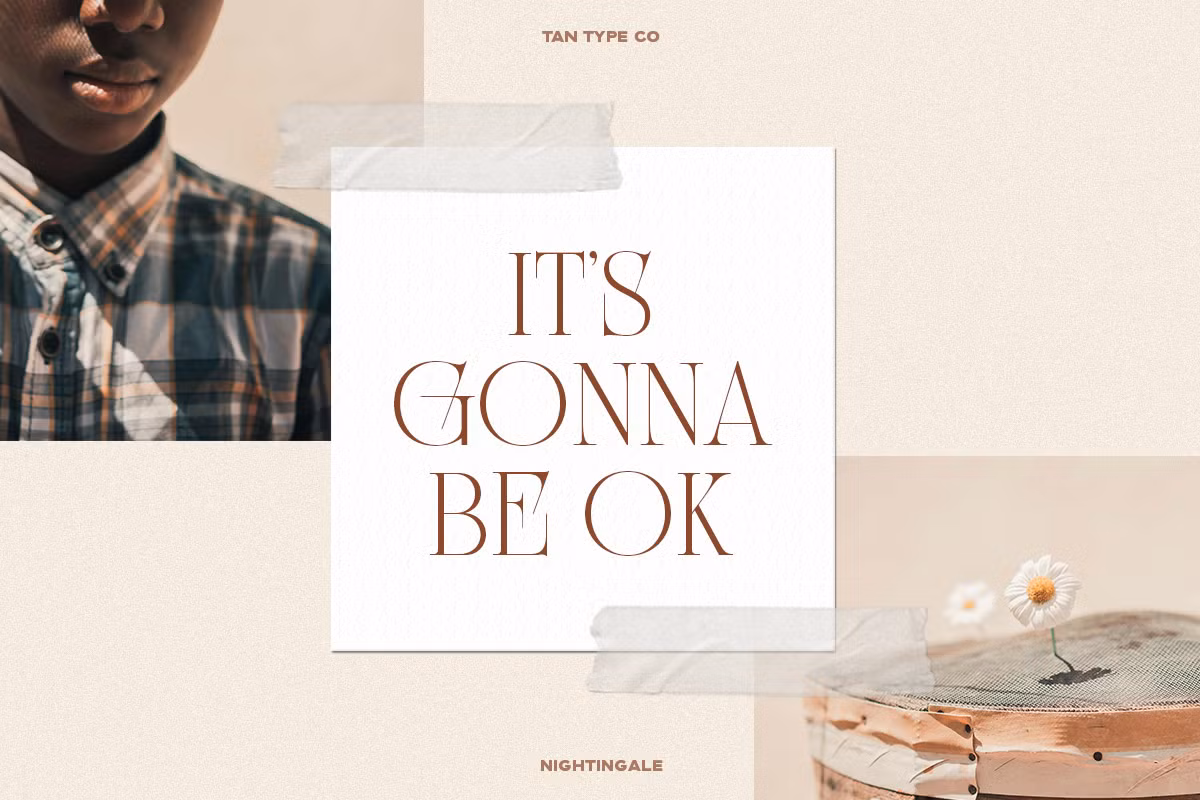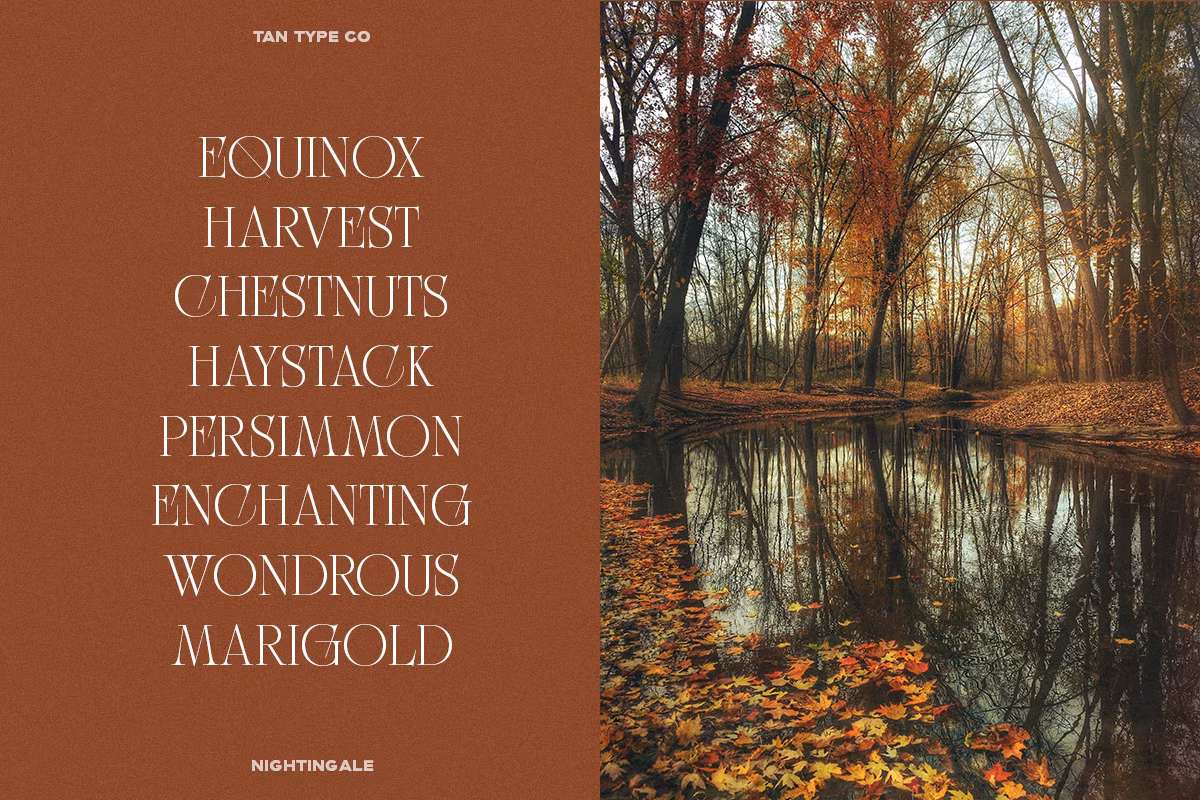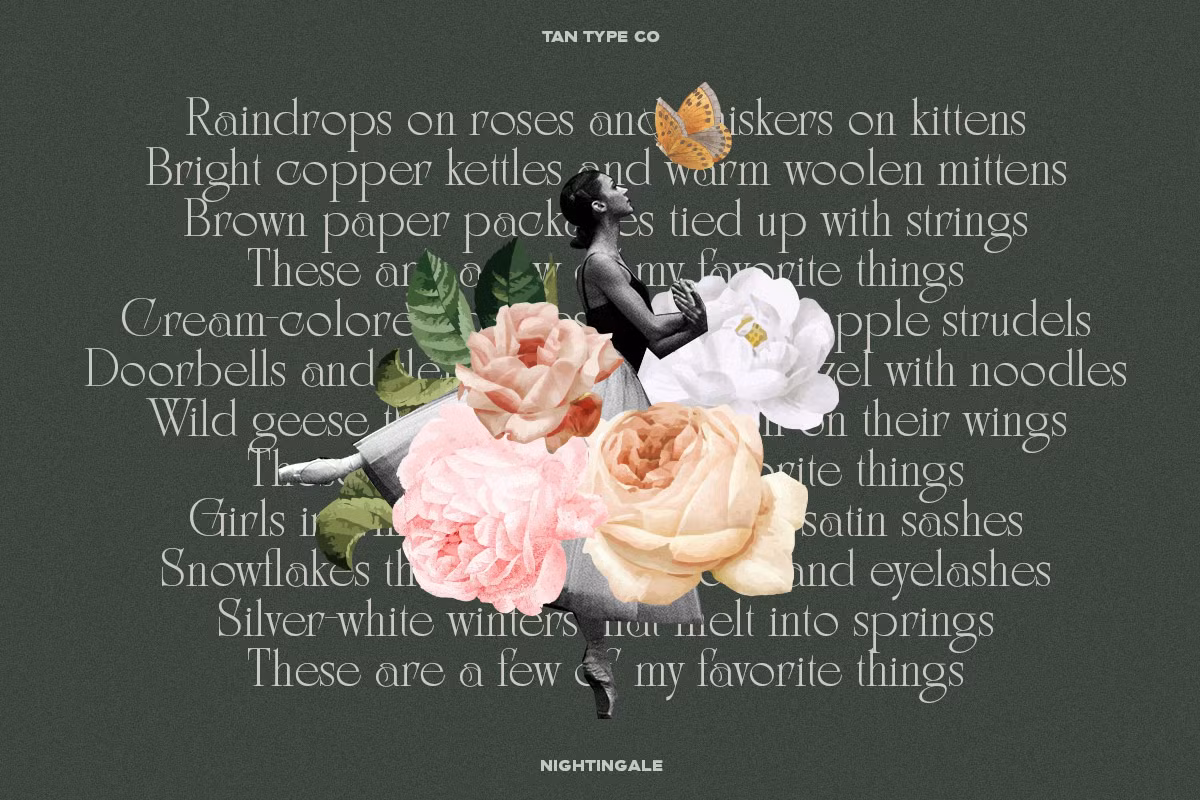
TAN Nightingale specimen and verified specs
- Styles: 1 (Regular)
- Glyphs: 374
- Language support: Basic Latin (English), Western European, Central & Eastern European
- OpenType features: standard ligatures, discretionary ligatures, stylistic alternates, kerning, fractions
- Designer: Novia Jonatan (TanType Co.)
Where the Deco look comes from
The listing calls TAN Nightingale “art deco inspired” with a “dramatically elongated serif”. In the specimens on this page, rendered from the licensed font files, much of that Deco feeling comes from where the weight sits. The N is the clearest example: two hairline uprights hold a single heavy diagonal. The S has a thick slanting spine between thin curves, and in the figures the 4 and 5 each put their weight into one bold bar while the rest of the shape stays wiry. That play of one heavy stroke against hairlines is a familiar device in 1920s and 1930s display lettering.
The decorative touches are the second layer. In the large specimen, the dot on the i is a perfect round ball, the e’s crossbar runs past the edge of its bowl, and the f leans forward under a curled hook. The a carries a hairline swirl looped across its bowl, and the g drops into a wide, flat oval that can sweep under the letters beside it. The arms of E and F are reduced to thin, wiry strokes, and the % sign has a long slash that reaches well beyond its two circles. In the figures row, 1, 2 and 3 sit close enough to touch.
All of this is drawn light. The heavy strokes are moderate and the thin ones are true hairlines, so the face needs size and a clean background to hold together.
- Style: one Regular. No bold, no italic.
- Glyphs: 374, including accented letters, ligatures and alternates.
- Version: 1.000. Creative Market dates the listing to 4 October 2020.
- Designer: Novia Jonatan, according to the font files, for TanType Co.
Languages and the five OpenType features
The listing modestly calls its language support “limited”. The licensed file is broader than that suggests: it covers Basic Latin, Western European and Central and Eastern European characters, which handles English, French, Spanish, German, Italian, Polish, Czech and similar languages.
What each OpenType feature does:
- Kerning evens out spacing between tricky pairs automatically.
- Standard ligatures merge letter pairs that would collide, and switch on by themselves in most apps.
- Discretionary ligatures are ornamental joins you turn on deliberately for a title or a name.
- Stylistic alternates replace certain letters with a second drawing.
- Fractions convert typed fractions such as 1/4 into proper fraction characters.
Projects that suit it, and partner fonts
Who designed TAN Nightingale?
What can I use with it for body text?
A quiet sans such as Lato, or Libre Baskerville for longer serif text.